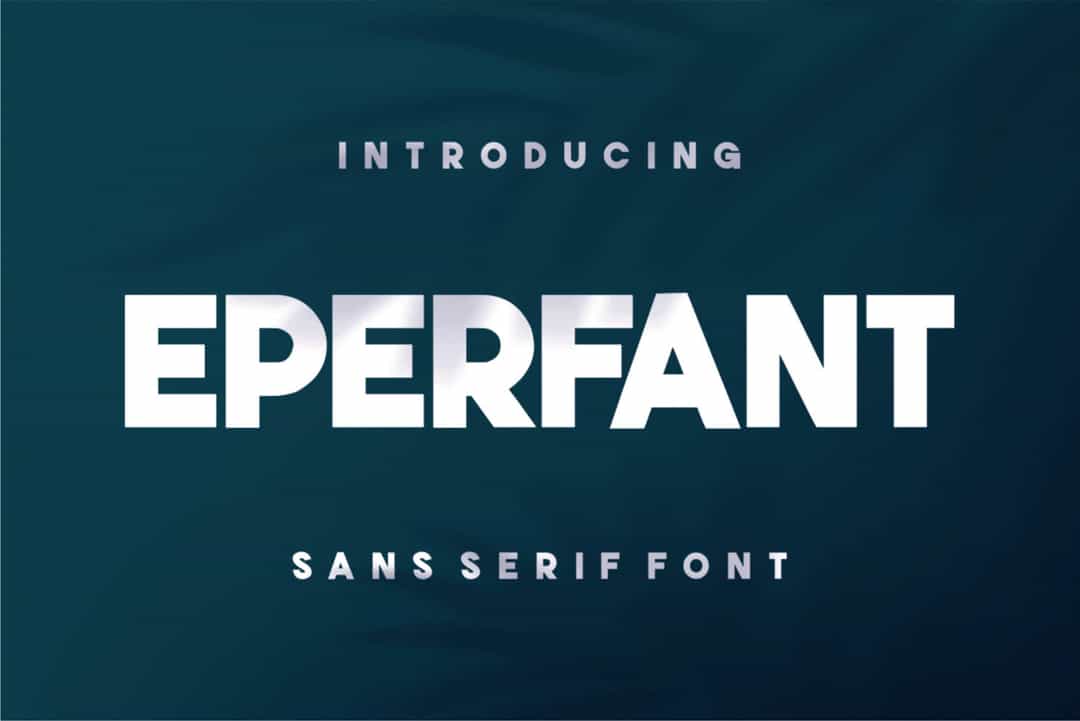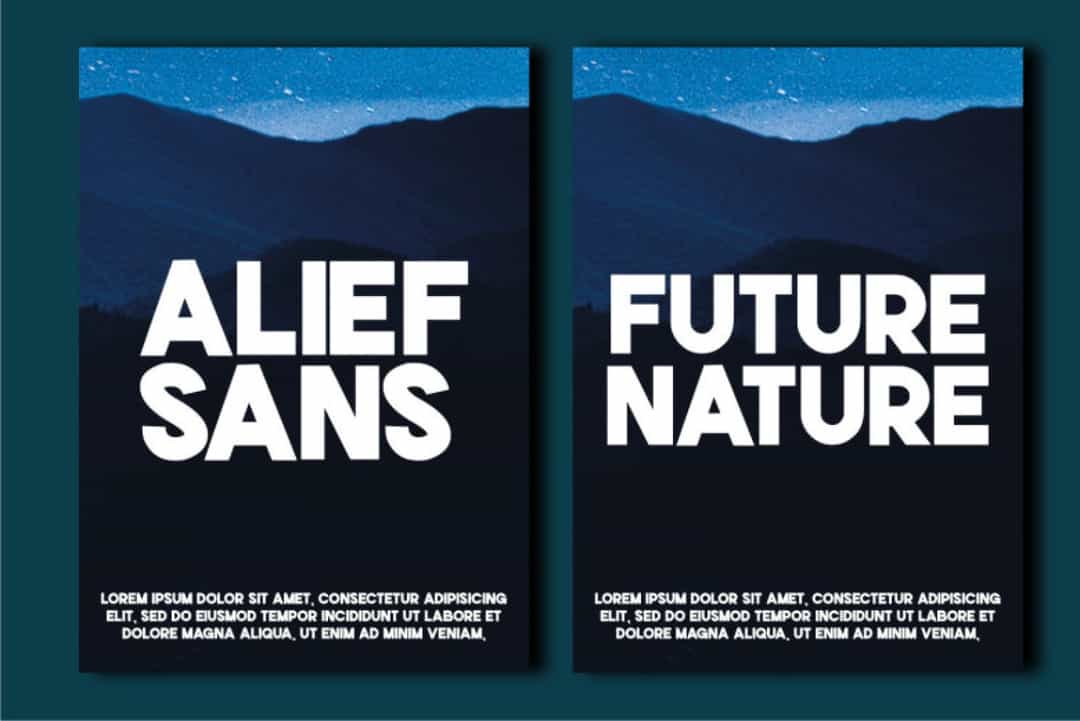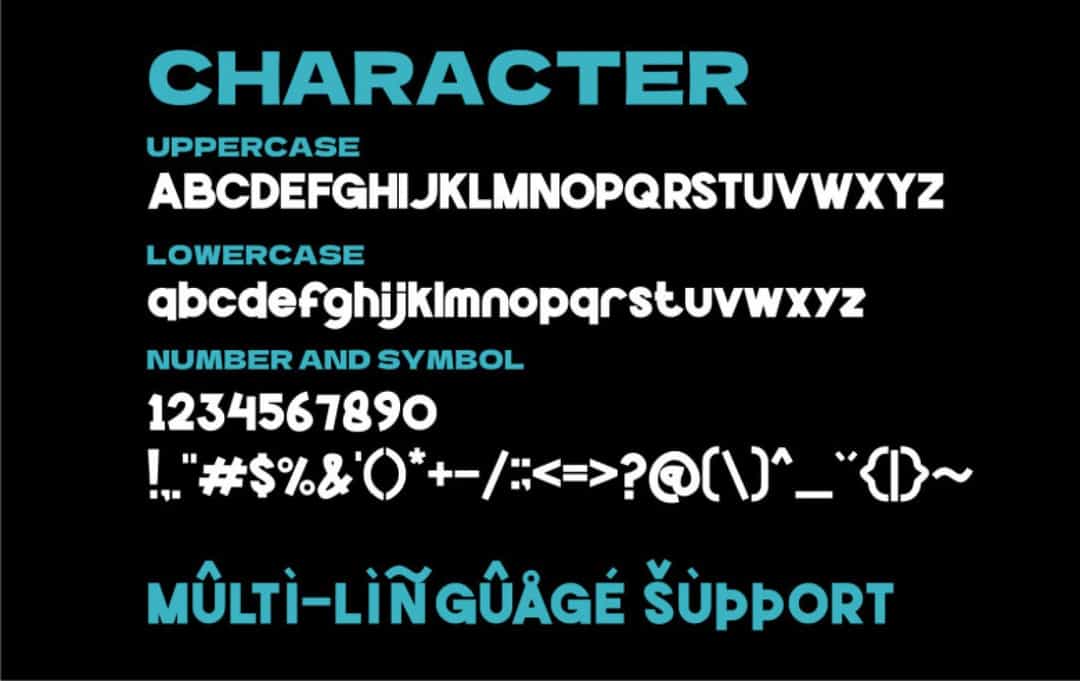
Eperfant is a bold, thickly-spelled sans serif typeface. No matter what the subject matter may be, Eperfant makes a wonderful addition to any font collection as its versatility complements almost every font style available today.